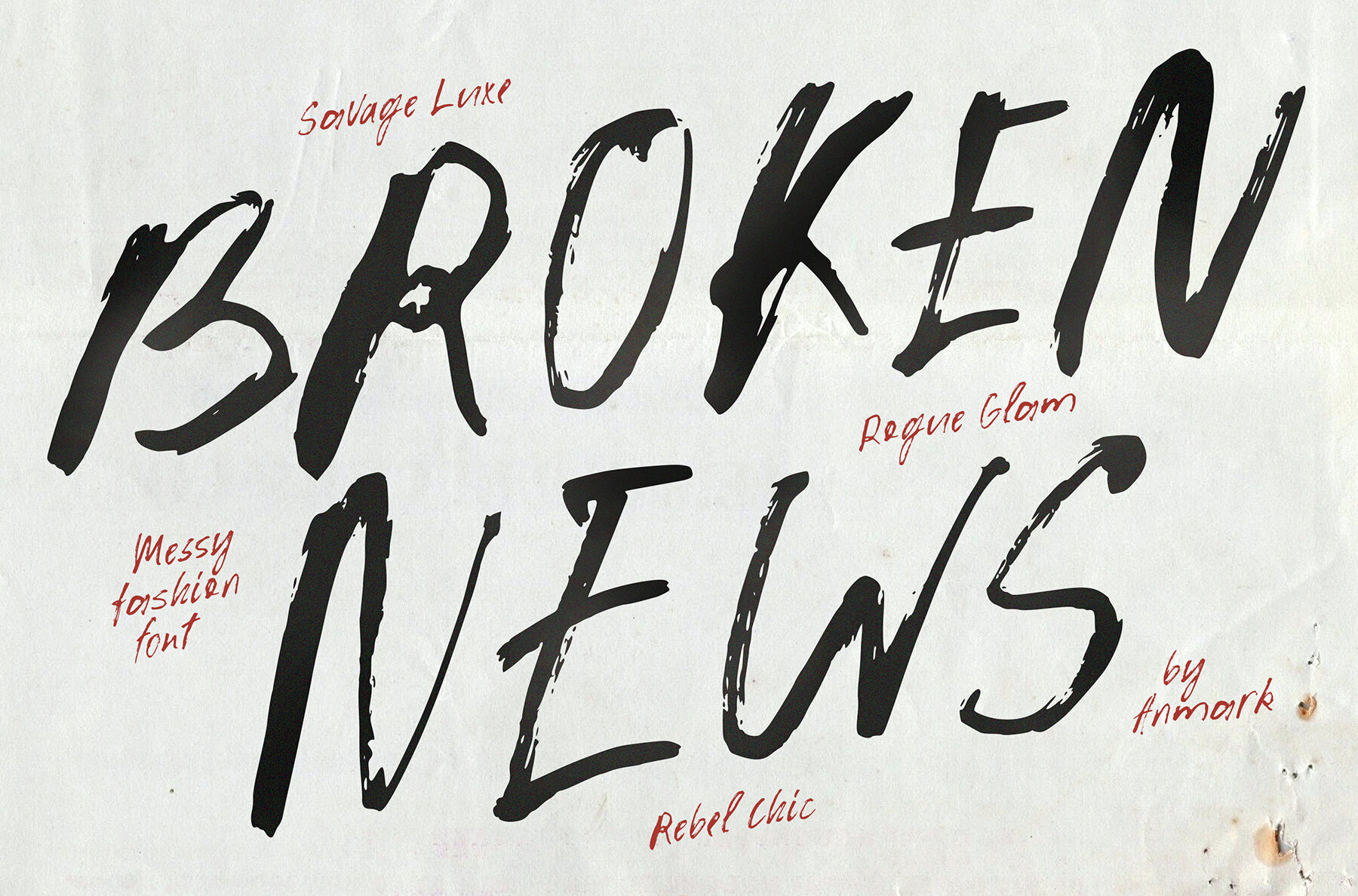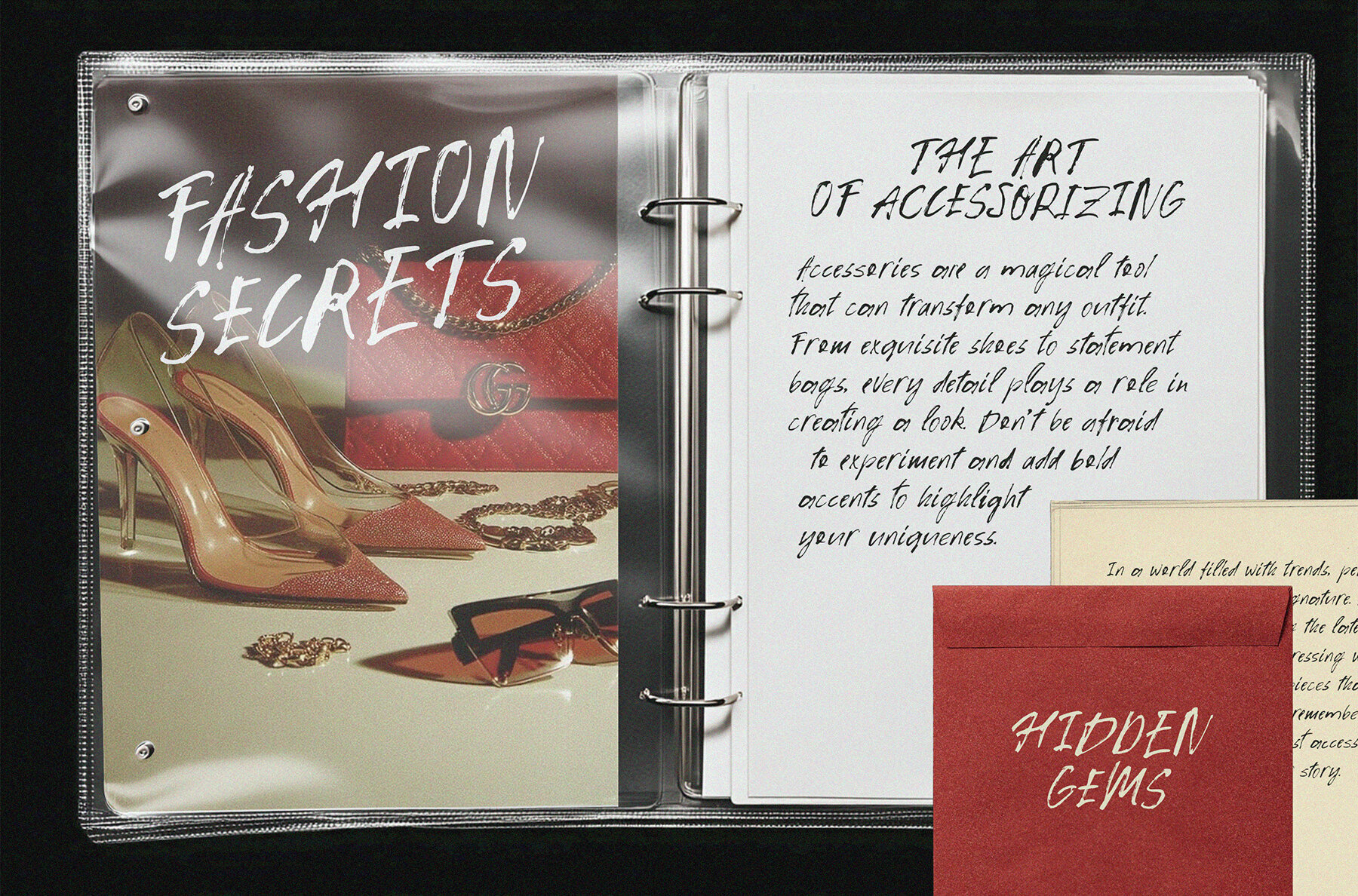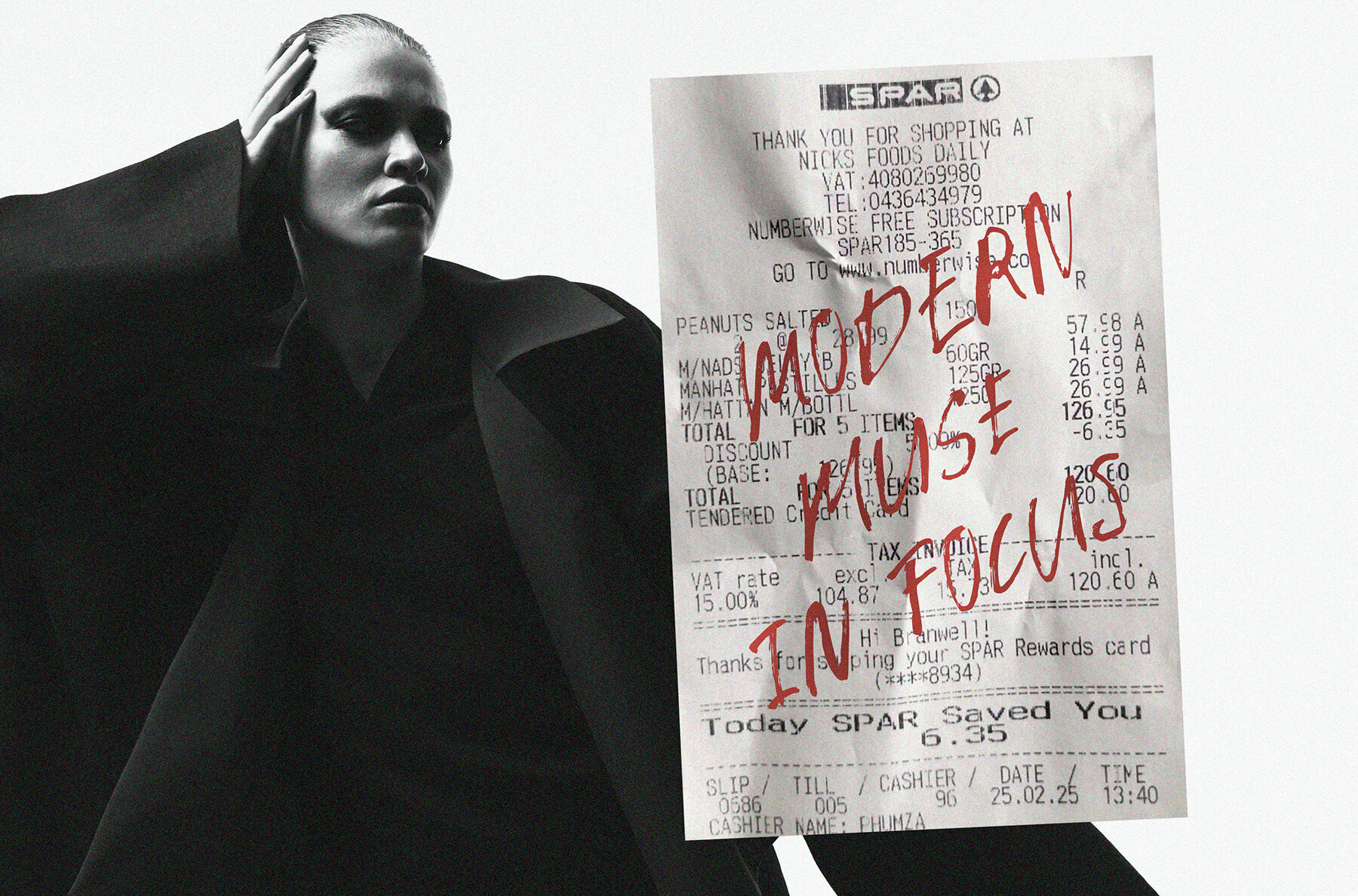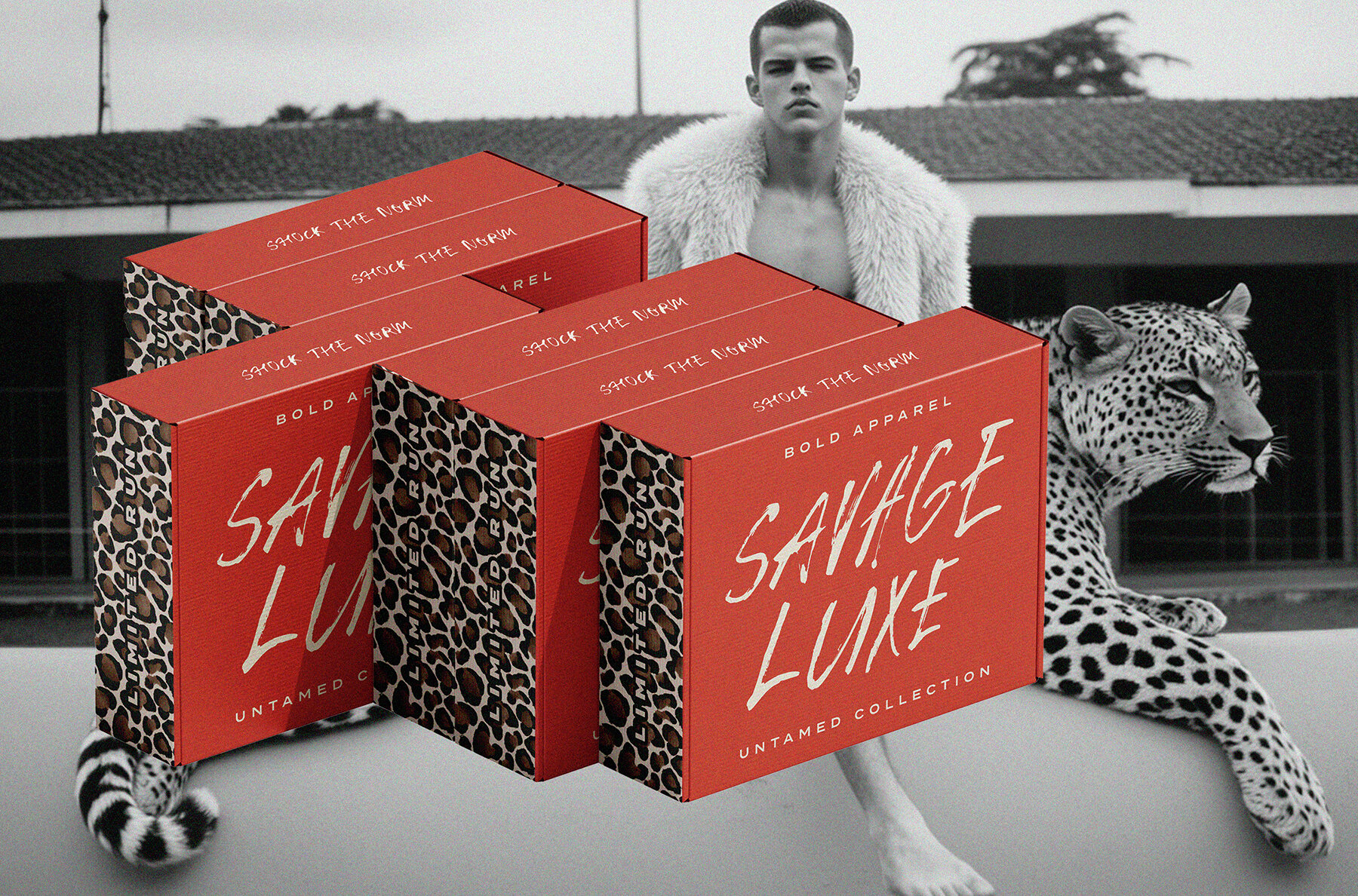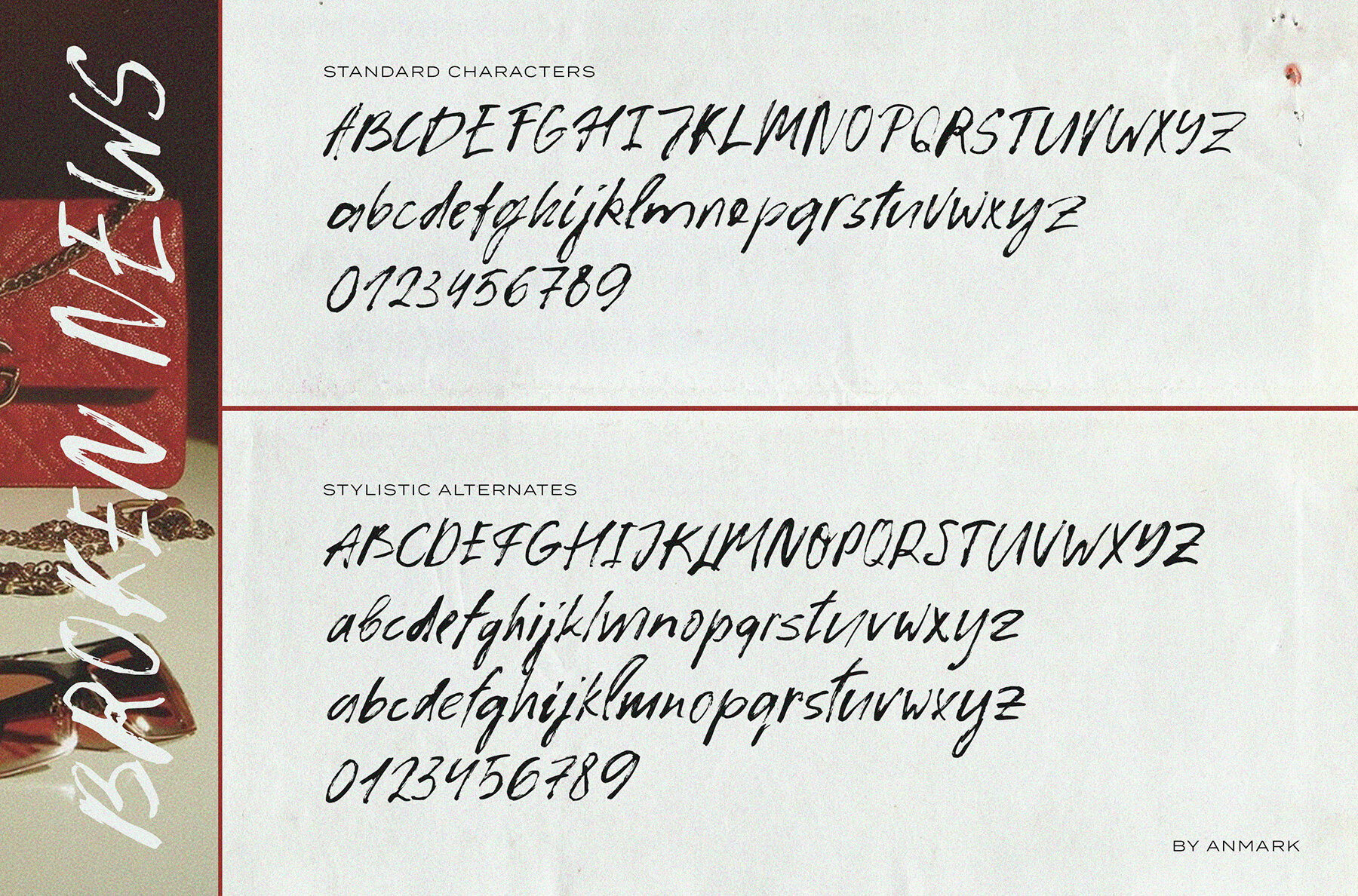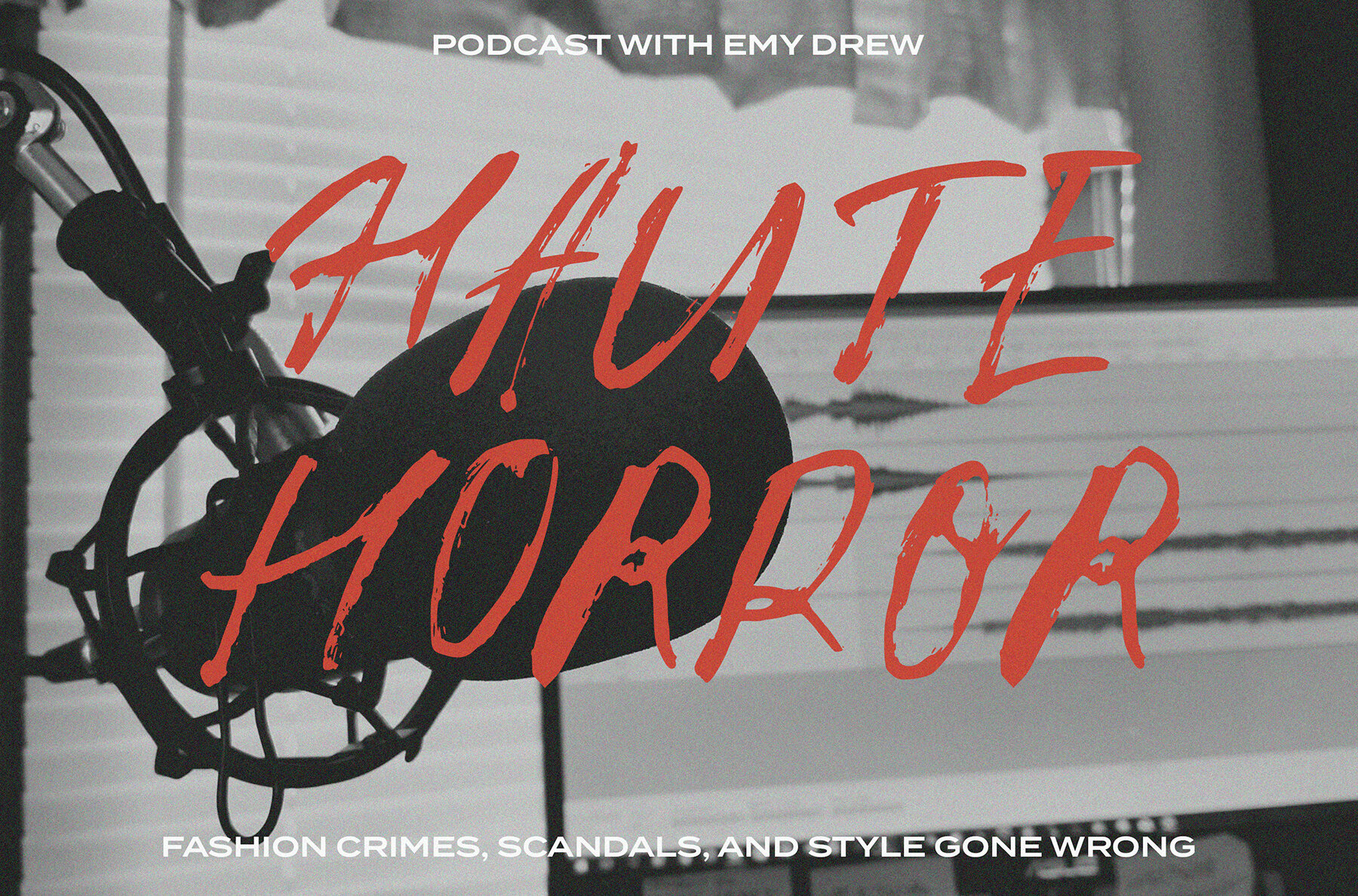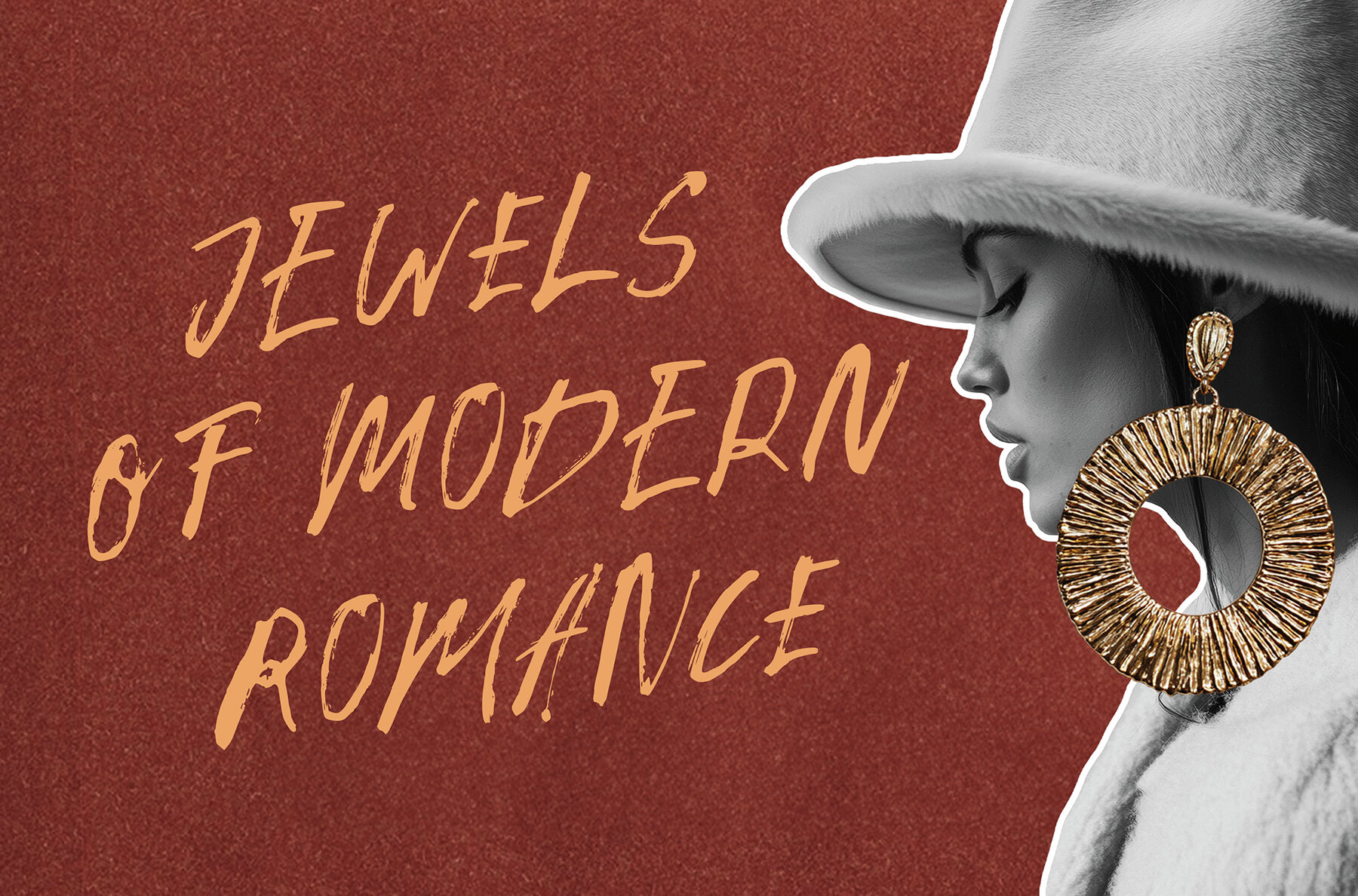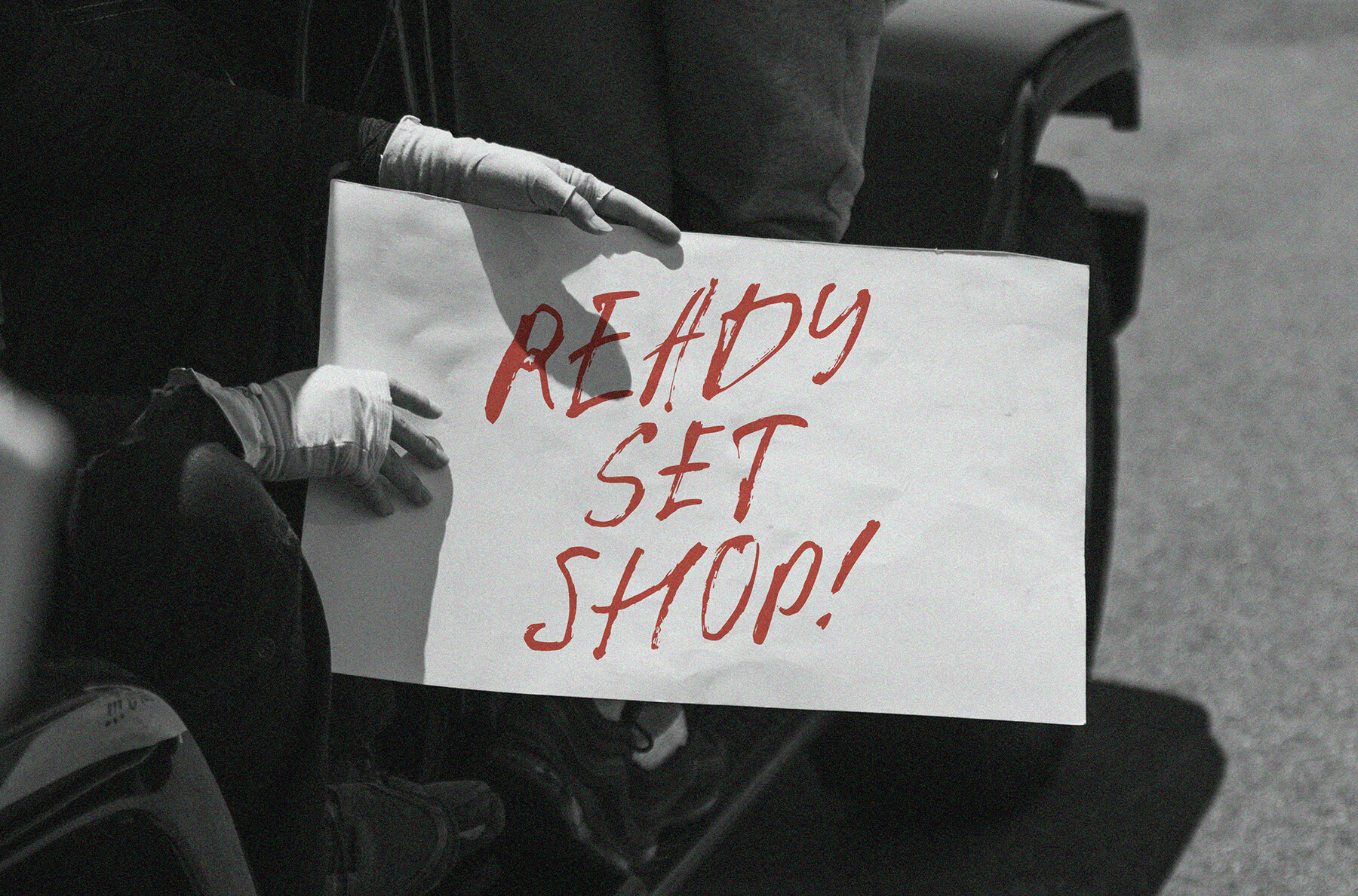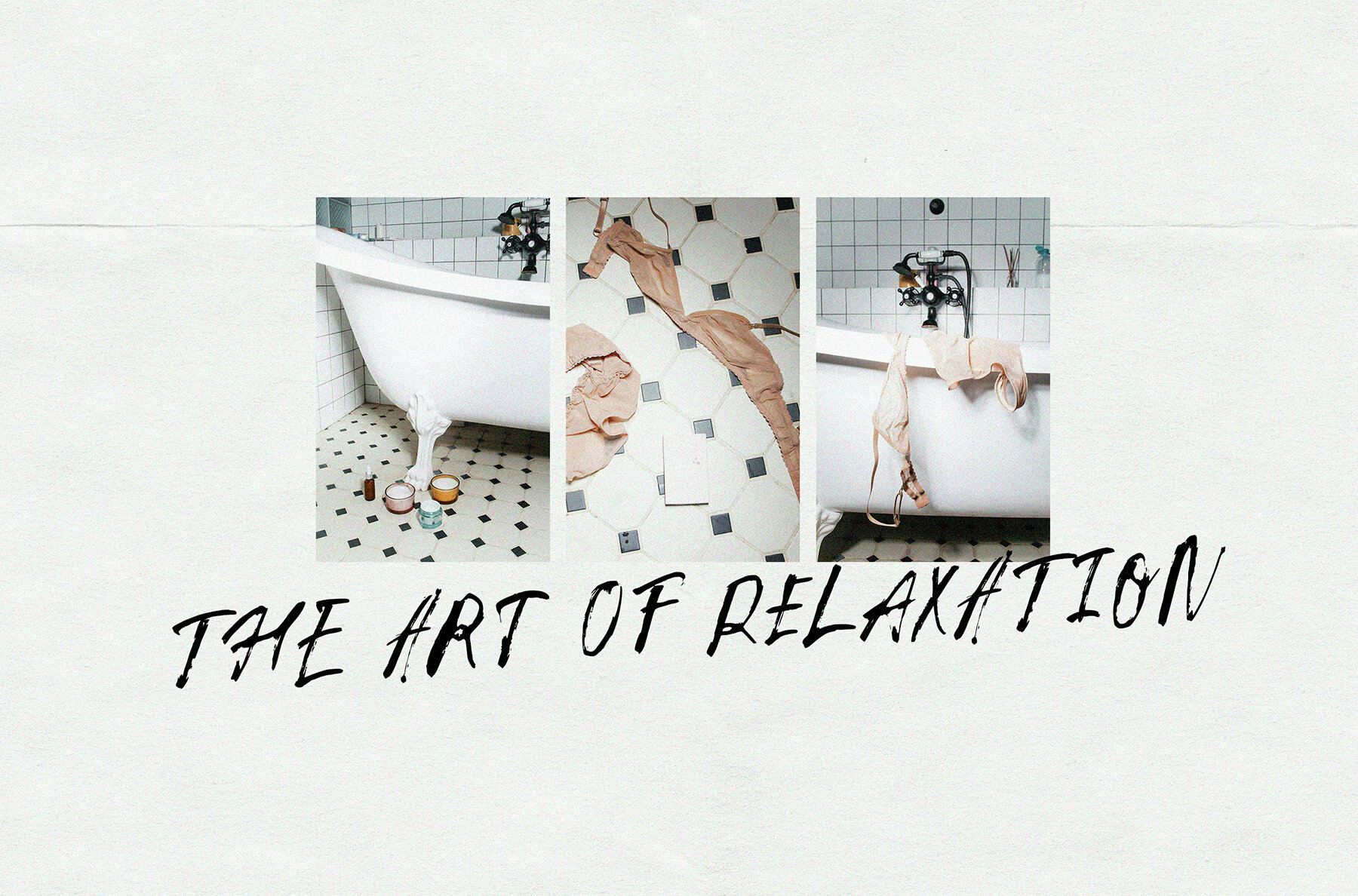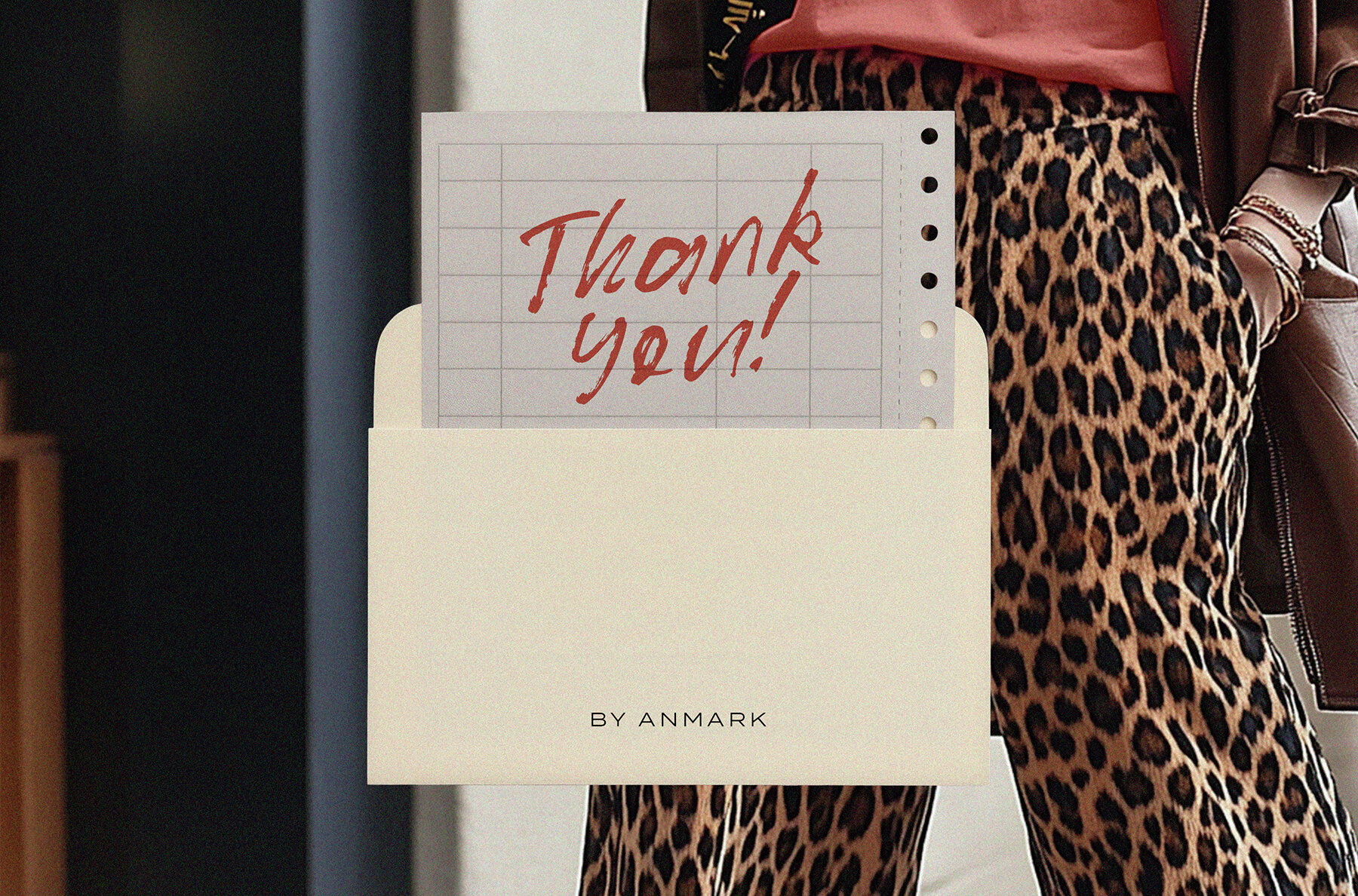
Broken News Font
Broken News
Broken News embodies a fashion-forward, enigmatic allure with its messy handwritten style, exuding a dark and chaotic Halloween vibe. This font is the perfect choice for those daring designs that demand attention, offering an air of drama and sophistication to editorial headlines and posters. Features: Ideal for a variety of creative projects, Broken News suits fashion editorials, statement graphics, and bold typographic designs. It's perfect for posters, magazine covers, and social media content requiring a distinct attitude. This font's gritty aesthetic complements gothic and horror themes, street style ventures, and alternative fashion outlets. Utilize it for book covers, zines, event invites, and expressive apparel prints. The chaotic yet luxurious spirit of Broken News adds an unmistakable edge to any design.Broken News: Edgy Handwritten Typography